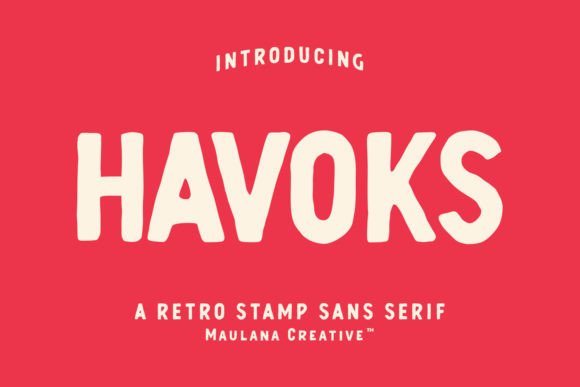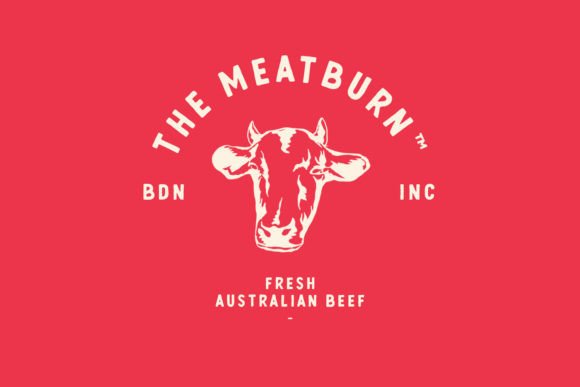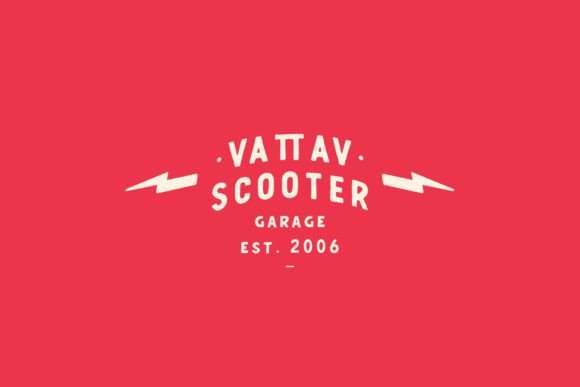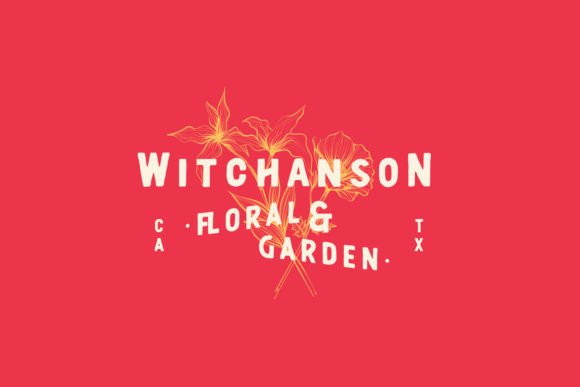
Havoks Font: Bold Retro Sans Serif Font for Logo Design & Branding
About the Havoks Font
Unleash your creativity with Havoks Font, a versatile font perfect for a wide range of applications. Havoks is a fun, retro-style sans serif font. Add this chunky lettered font to your designs and notice how it makes them come alive!
Havoks excels in headline applications, short impactful statements, and branding elements where a bold, retro aesthetic is desired. Its chunky letterforms work particularly well for posters, logos, and packaging designs that target a younger demographic or aim for a playful, energetic feel. However, its strong character and relatively large x-height make it less suitable for body text or lengthy paragraphs, as readability would suffer.
Consider pairing Havoks with a clean, geometric sans-serif like Futura for a modern contrast, or a classic serif like Garamond for a touch of sophistication that balances its retro energy. A playful script font could also complement Havoks in certain applications, adding another layer of vintage charm while maintaining visual harmony.
Its core personality is energetic and bold, conveying a sense of fun and retro nostalgia. Brands focusing on entertainment, streetwear, or products with a vintage appeal would find Havoks a strong visual asset.